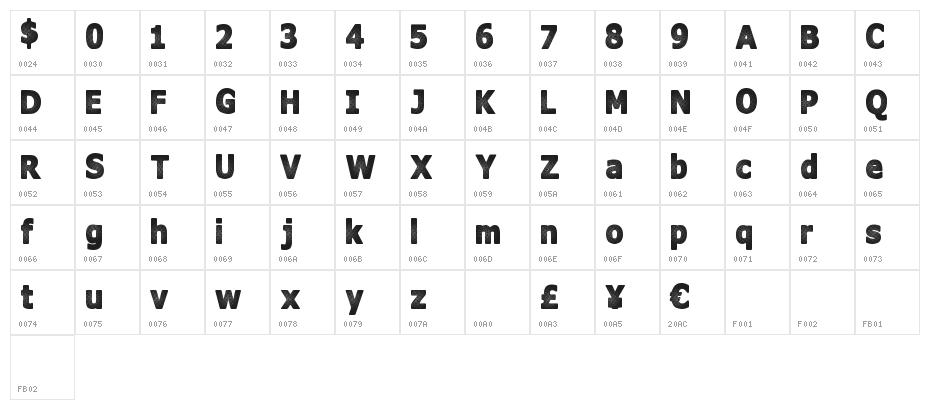
InterFade Font
InterFade Description
This font features a bold, textured style with a dotted pattern that gives it a unique, eye-catching appearance. The characters are robust and slightly rounded, providing a sense of strength and stability. The uppercase and lowercase letters maintain a consistent weight, while the numbers and special characters follow the same design principles, ensuring uniformity across all glyphs. The texture adds a layer of depth, making it suitable for designs that require a distinctive and memorable look.